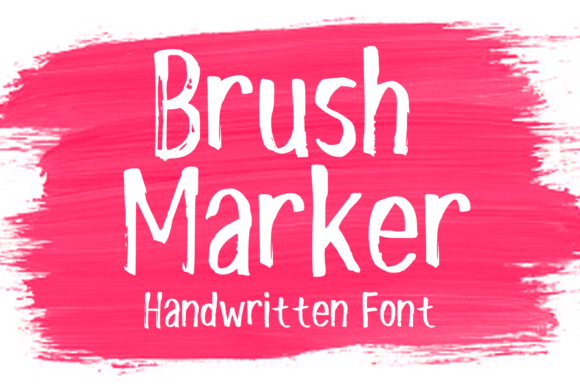
Unleash your creativity with Brush Marker Font, a captivating display font that exudes charm and authenticity. Inspired by the organic flow of hand-lettered brush strokes, this font brings a touch of playfulness and personality to your designs.
With its bold and expressive characters, Brush Marker Font is the perfect choice for those looking to make a statement. Whether you're creating t-shirts, kids' book designs, greeting cards, stickers, or posters, this font will add a unique and eye-catching touch.
Step into a world of endless possibilities with Brush Marker Font. Its versatile style effortlessly adapts to a wide range of projects, allowing you to explore your creativity without limits. From playful and whimsical designs to elegant and sophisticated creations, this font has the power to transform your ideas into captivating works of art.
Brush Marker Font is not just another font; it's an experience. Its intuitive design makes it easy to use, even for those new to the world of typography. With just a few clicks, you can add a touch of magic to your designs and leave a lasting impression.
Don't let mediocrity hold you back. Embrace the beauty of Brush Marker Font and unlock a new realm of creative possibilities. Elevate your designs, captivate your audience, and leave a mark that will be remembered.
Dive into the world of Brush Marker Font today and let your creativity flourish!